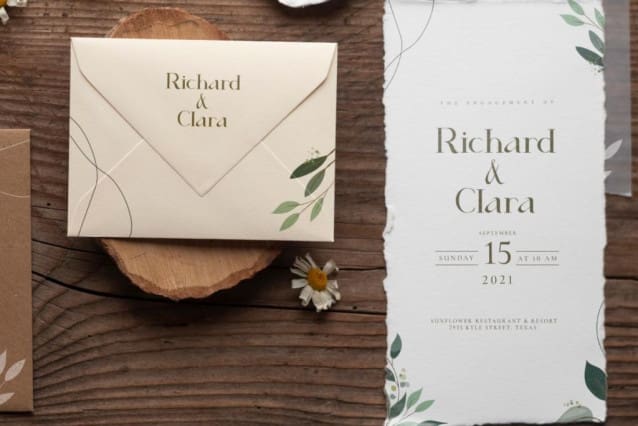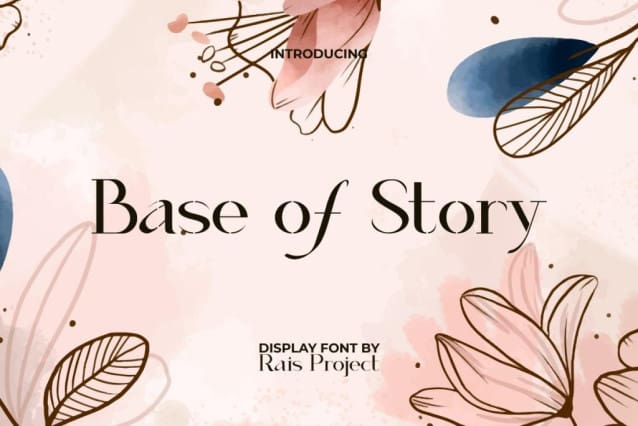
Base Of Story Font
Base Of Story Font is an elegant sans serif display font nicely designed by RaisProject Studio. This font has a modern stylish combination of beautiful and perfect lines, as well as added details of thin line breaks which are its special characteristics to every design you make, such as advertisement, brand logo, cover, custom design, flyer, greeting card, invitation, label, menu, poster, product packaging, quote, signage, web page, and more!
Base Of Story Font includes a full set of Uppercase and Lowercase Letters with their own uniqueness and distinction, Numerals, Punctuation, and Symbol. This luxurious font will be suitable for various industries, such as beauty product, café, event or wedding organizer, fashion, furniture, photography, printing, publishing, etc.